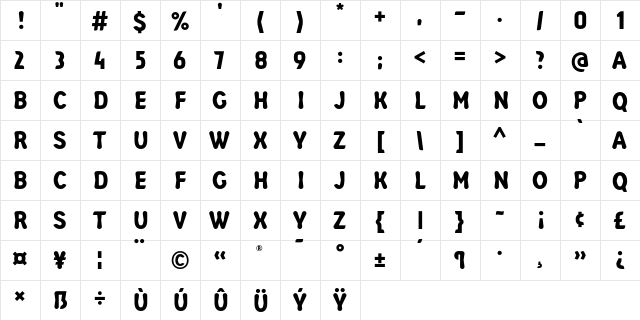
TEODE BASIC Regular
| Designer | _ukasz Luta Olszewski |
Design Context for TEODE BASIC Typeface
TEODE BASIC is a composed and adaptable typeface that performs quietly and consistently across a wide range of design contexts.